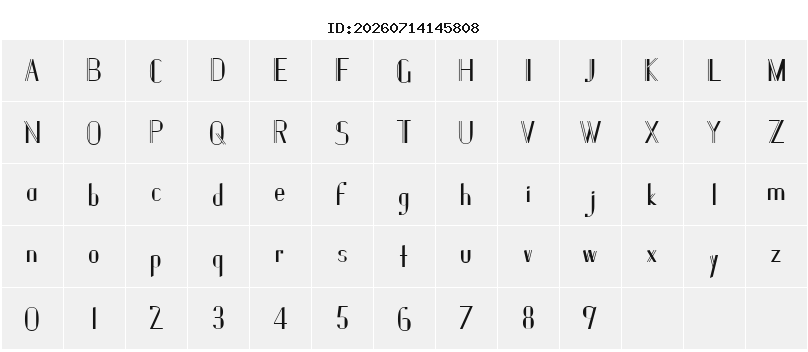
Janesville 51 Preview
• Font Name: Janesville 51
• Full Font Name: Janesville 51 Bold
• Designer: PJL
About Janesville 51.ttf
Janesville 51.ttf is a modern, elegant sans-serif font designed for ultimate readability and visual harmony. Perfect for branding, headlines, web design, and print materials.